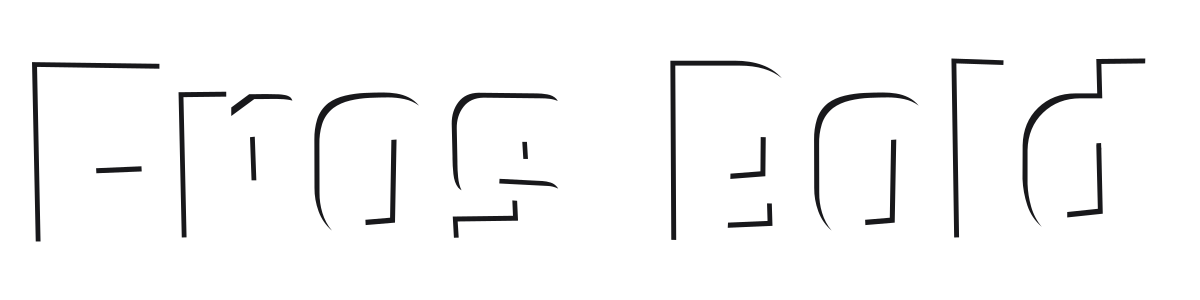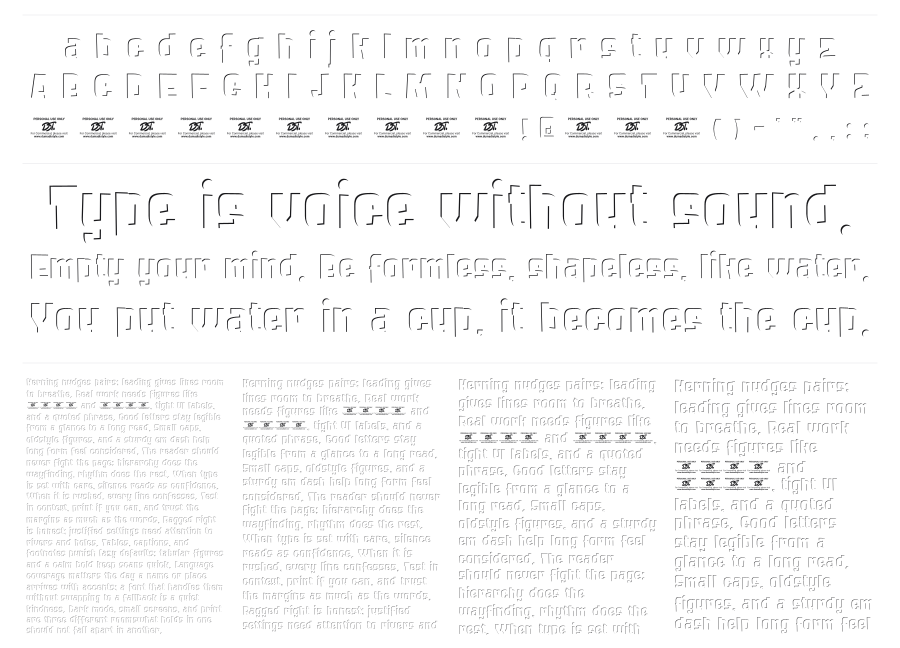
Fros Bold
Fros Bold is a condensed geometric sans-serif rendered entirely as an outline with a shadow-box inline effect that makes each character appear to float with depth. Subtle rounded notches at terminals and joints keep the design from feeling harsh, landing somewhere between industrial and approachable. It works best at large display sizes where the outline detail can breathe.